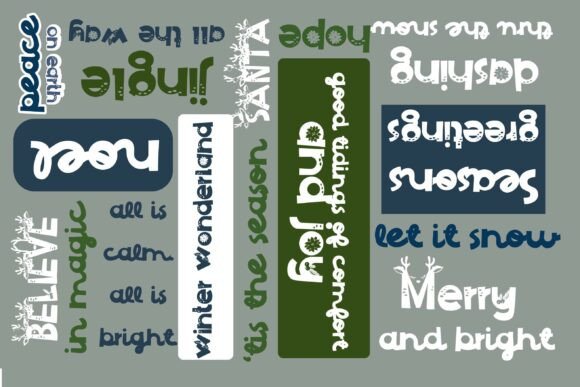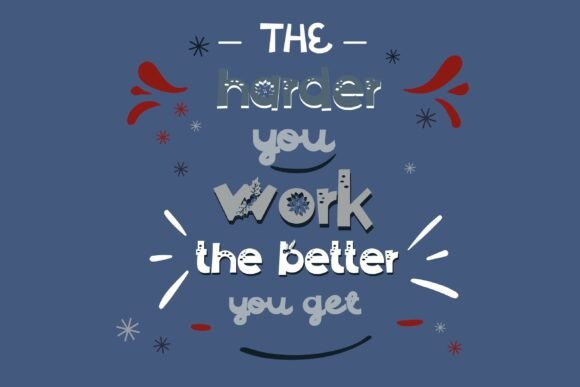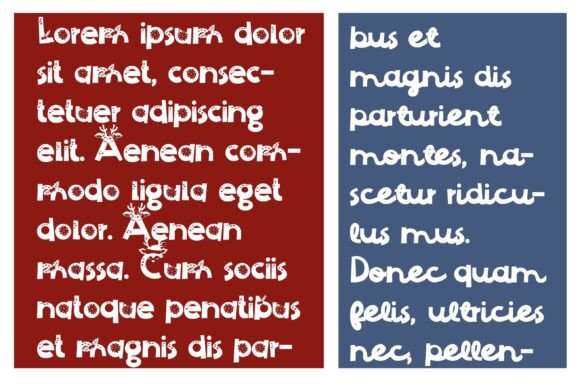
Introduction to Christmas Deer Duo Font
As I sat at my desk, surrounded by twinkling lights and the soft glow of my computer screen, I couldn’t help but feel the magic of the holiday season. The sound of snow falling outside and the faint scent of hot cocoa wafting from the kitchen only added to the festive atmosphere. But what really got me in the holiday spirit was the project I was working on – a custom Christmas card for my family. I wanted it to be special, to capture the whimsy and wonder of the season, and that’s when I stumbled upon the Christmas Deer Duo Font.
This hand-crafted font duo is a game-changer for designers looking to add a touch of holiday cheer to their creative projects. With its playful, hand-crafted feel and perfectly coordinated script, it’s the perfect design resource for anyone looking to create high-quality, festive content. And the best part? It’s available for free download, making it a valuable addition to any designer’s toolkit.
- High-quality design resource perfect for creative projects, such as holiday cards, gift tags, or festive advertisements.
- Includes two unique deer designs, ideal for adding a touch of whimsy to your project.
- Perfect for designers and crafters looking for a unique and festive design element to enhance their creative project.
Honest Review: Christmas Deer Duo Font
I recently had the chance to work with the Christmas Deer Duo Font, and I’m excited to share my thoughts with you. This font is perfect for any creative project that needs a touch of holiday cheer.
- ✨ High-quality design: The Christmas Deer Duo Font is crisp and clear, making it ideal for printing or digital use.
- ✨ Transparent background: This font has a transparent background, which is perfect for designers who want to add their own background or use it with other design elements.
- ⚠️ Limited font styles: The font comes in only two styles, which may limit its versatility for some designers.
Overall impression:
I was impressed with the quality of the Christmas Deer Duo Font, and I think it’s a great resource for designers who need a high-quality, free font for their creative projects. Just be aware of the limitations mentioned above.
The Christmas Deer Duo Font is perfect for creating designs related to Christmas, winter, and holiday seasons. You can use it for creating invitations, social media graphics, posters, flyers, and brochures. It’s also a great resource for designers who want to add a personal touch to their projects.
To get the most out of the Christmas Deer Duo Font, use it in combination with other design resources, such as graphics and illustrations. Experiment with different font sizes, colors, and combinations to create unique and eye-catching designs. You can also use it for creating custom designs for your business or personal brand.